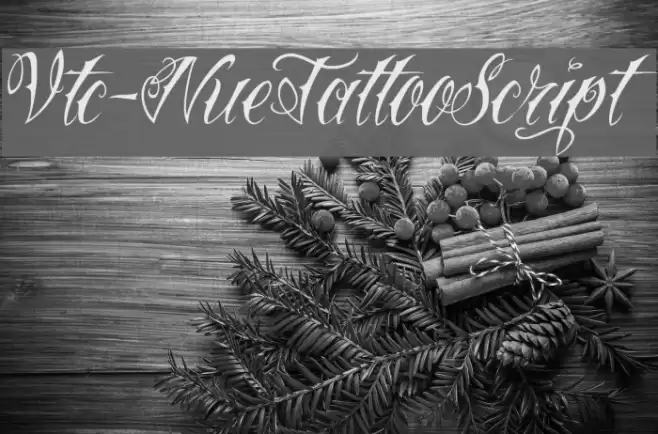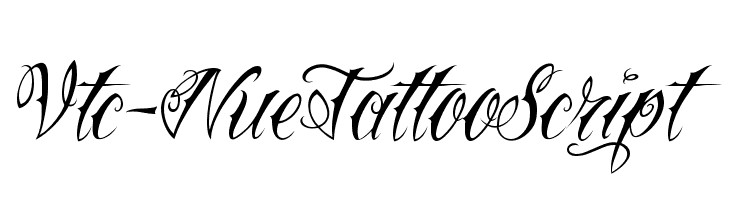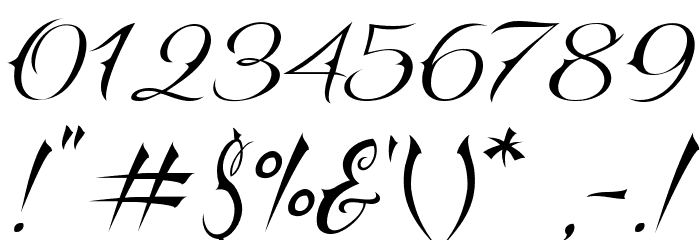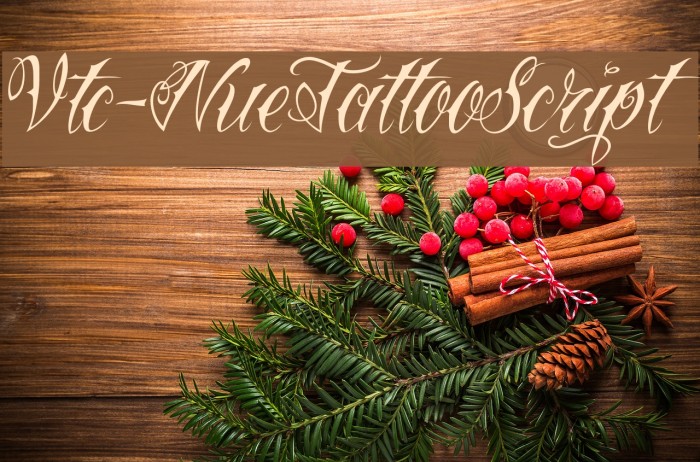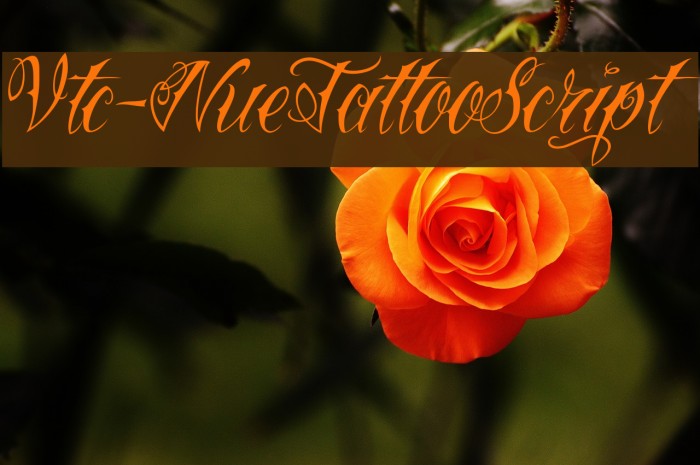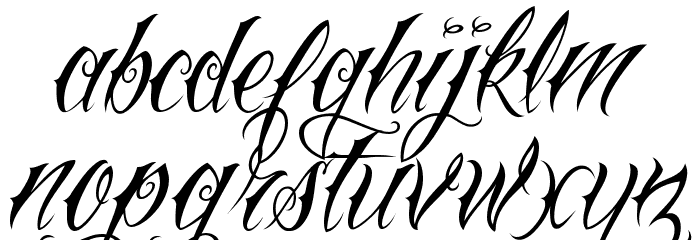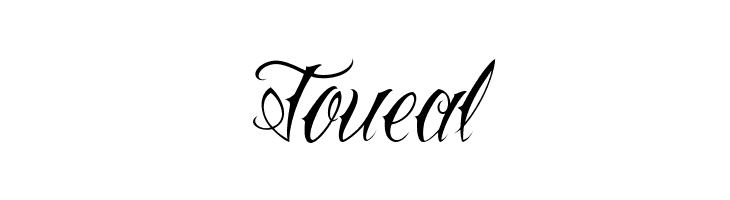
Vtc-NueTattooScript Font
Vtc-NueTattooScript Description
This font features an elaborate and artistic script style, characterized by its flowing, interconnected letterforms and ornate flourishes. The uppercase letters are particularly decorative, with intricate loops and swirls that give a sense of elegance and sophistication. The lowercase letters maintain a consistent style, with smooth curves and a slightly slanted orientation, enhancing the fluidity of the text. The numerals and special characters are designed to match the overall aesthetic, ensuring a cohesive appearance across all glyphs. This font is ideal for projects that require a touch of elegance and artistic flair.
An ornate script font with flowing, interconnected letterforms and decorative flourishes from Uncategorized fonts.
- Proposed Projects: Perfect for tattoo designs, wedding invitations, elegant branding, and artistic posters.
- Use Case: Logos, Invitations, Artistic projects